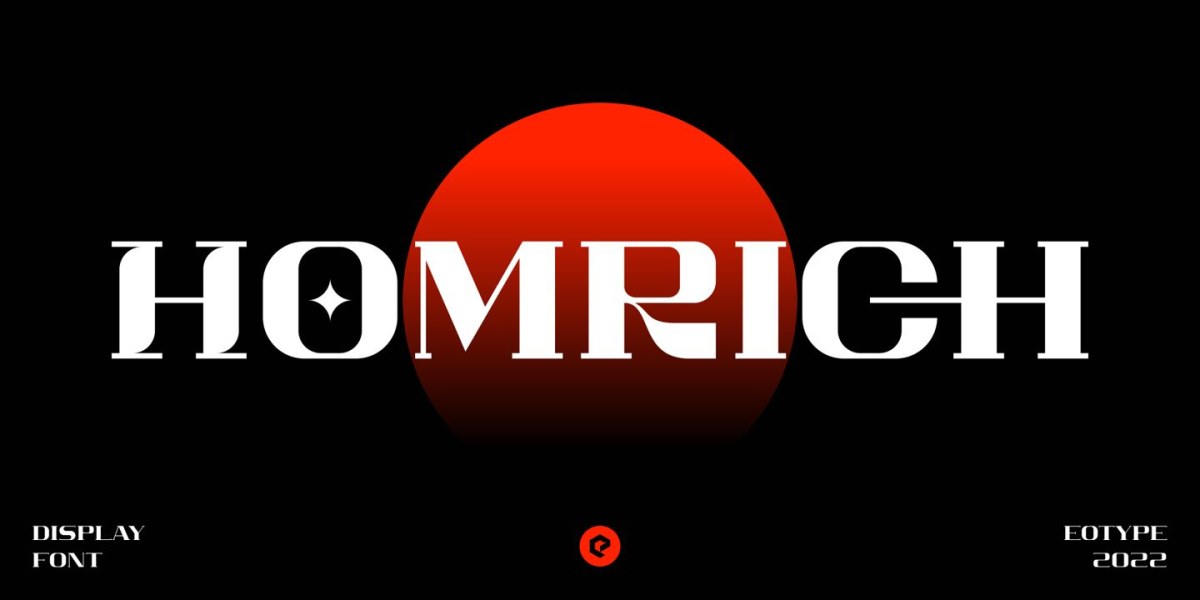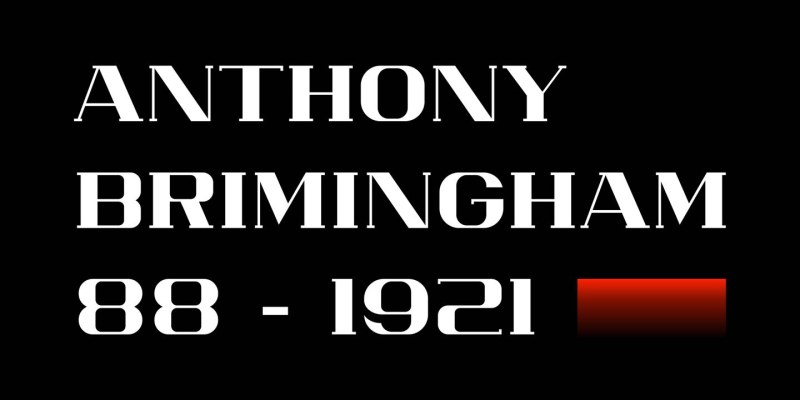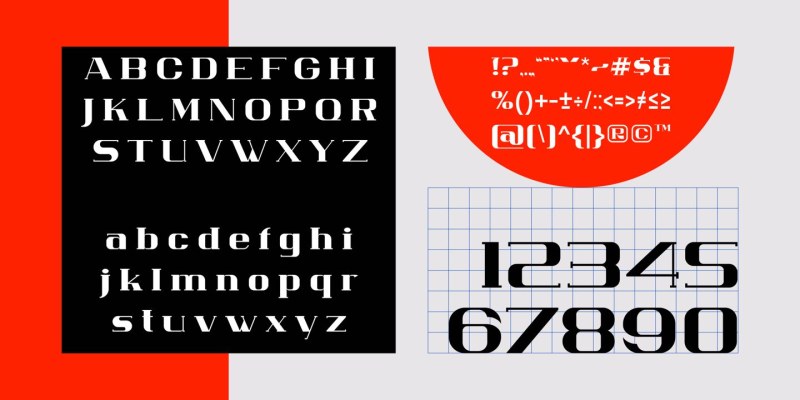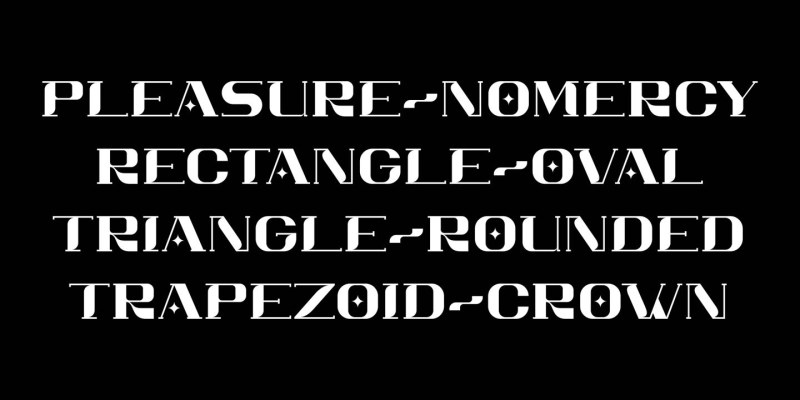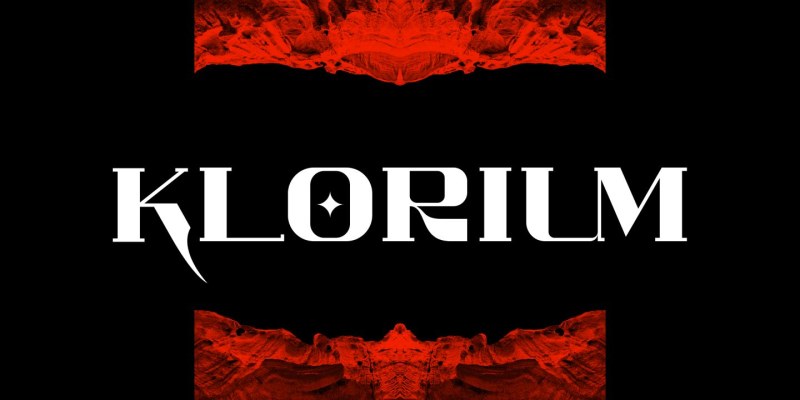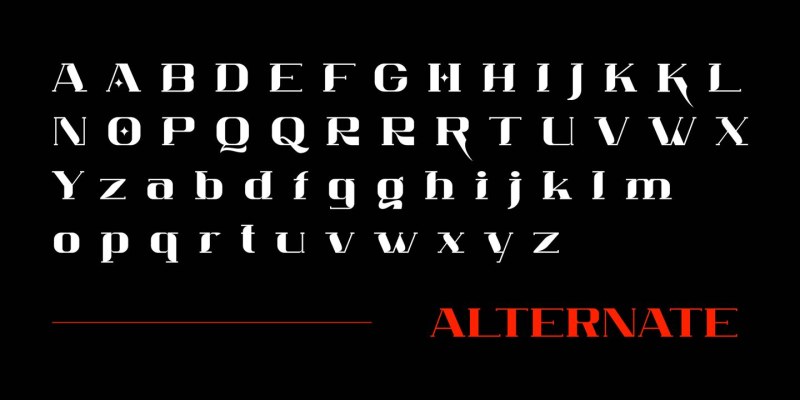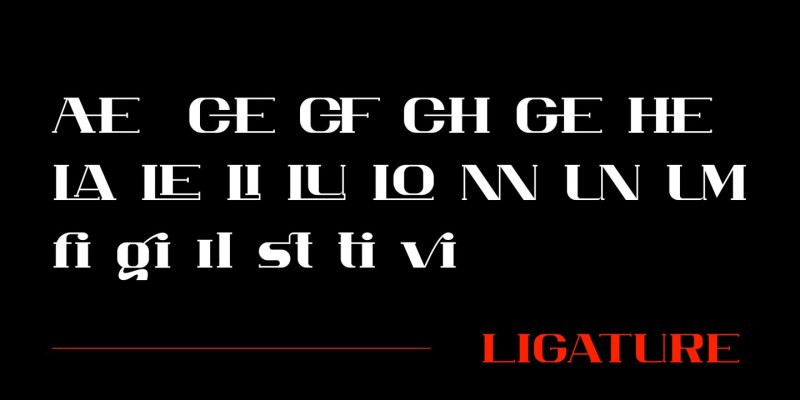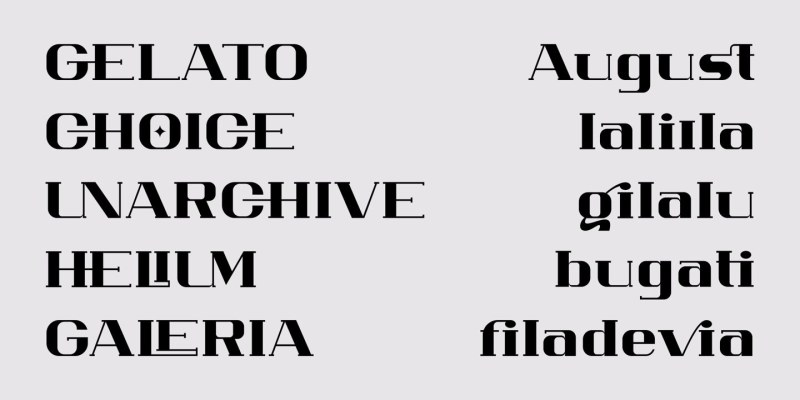
Homrich Font
Homrich is font designed by Fajar Ramadan, with design combination between urban street wear themes. Homrich comes with stylistic, alternates, ligatures and supports multilingual languages. Create unique & beautiful logotype, use it as an elegant solution for your next magazine layout, or choose Homrich for any graphics that require a sleek look with a elegant.
Homrich Font is a Display Fonts font that brings a professional and versatile look to your projects. Homrich is font designed by Fajar Ramadan, with design combination between urban street wear themes.